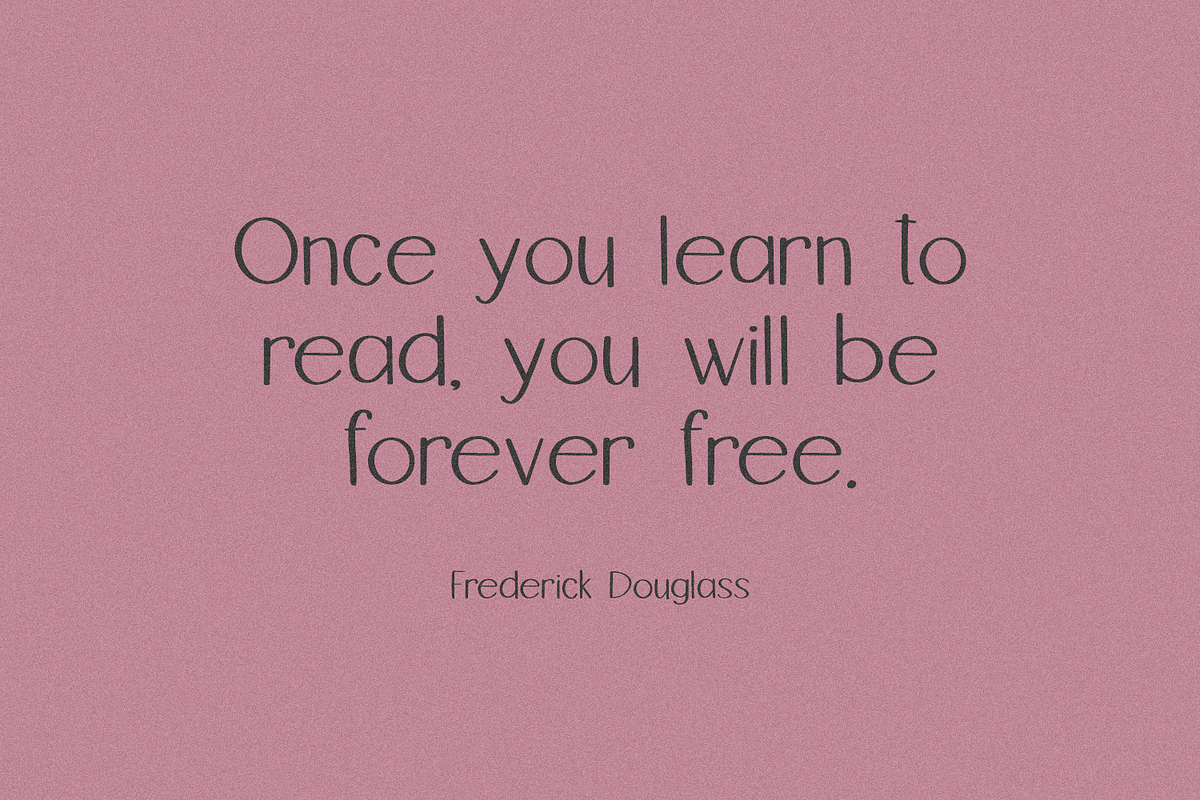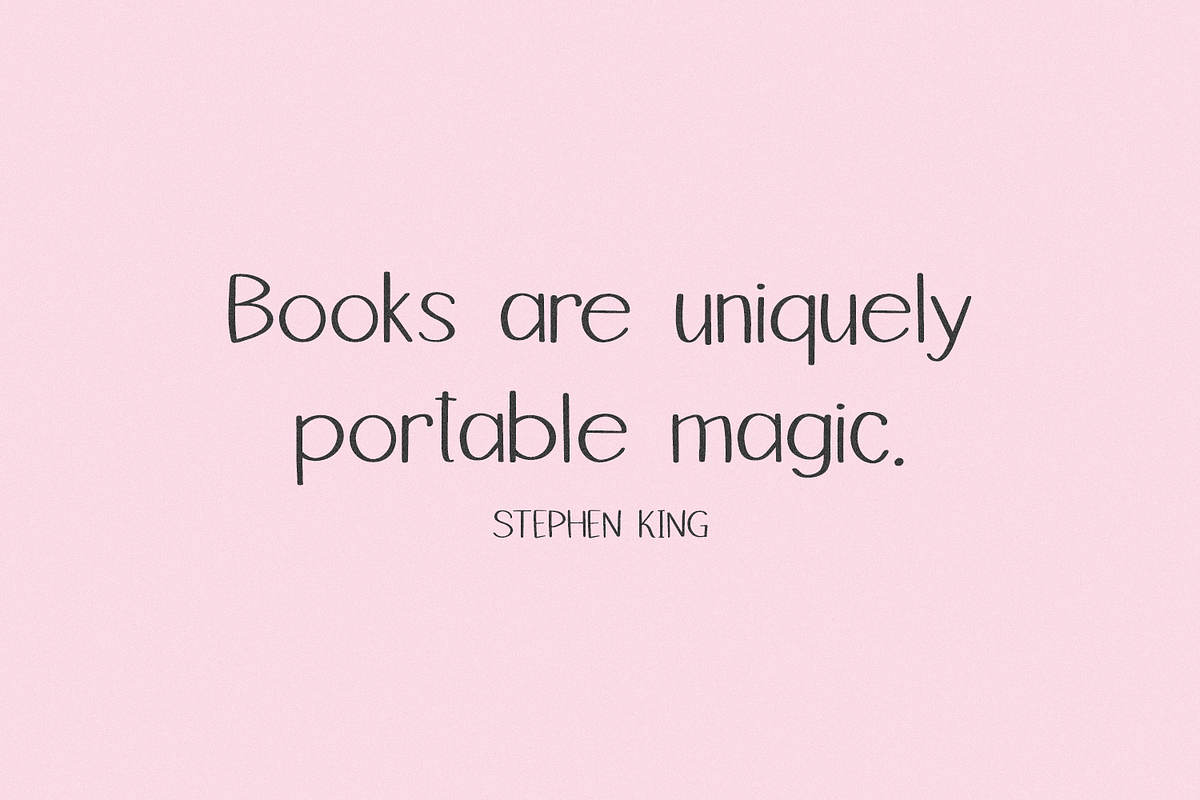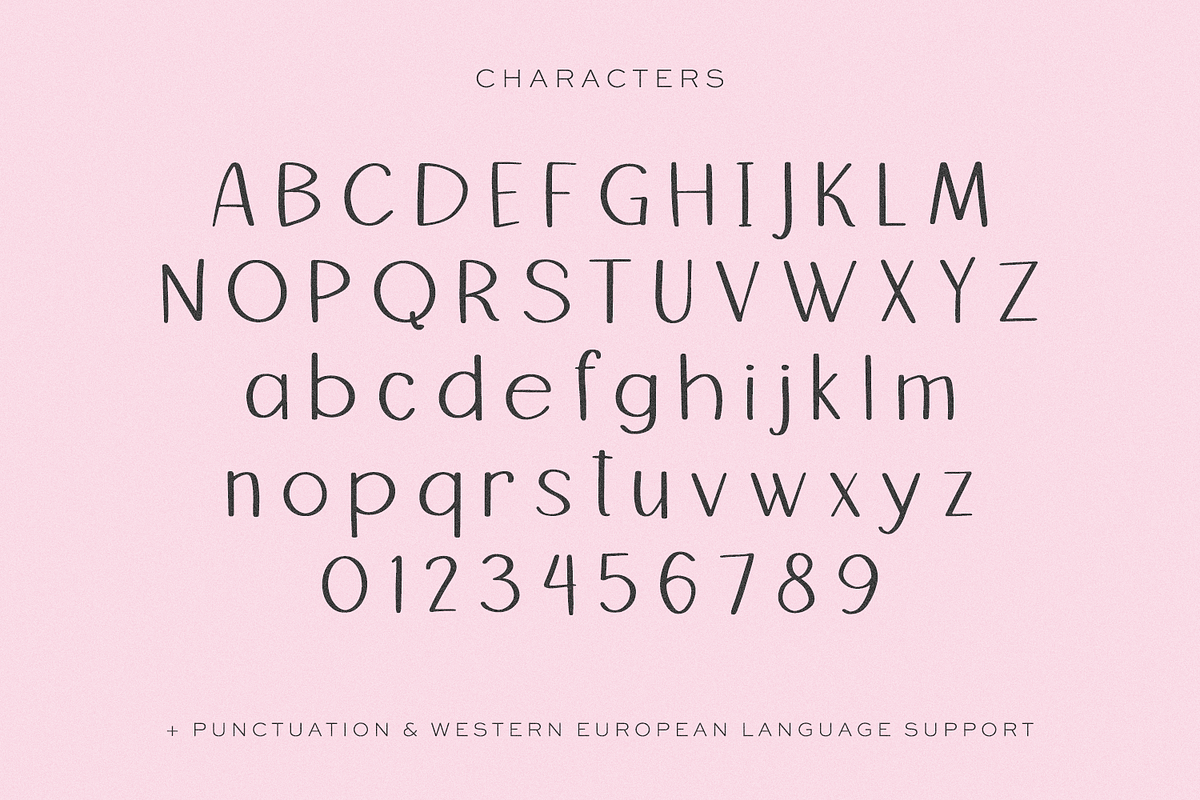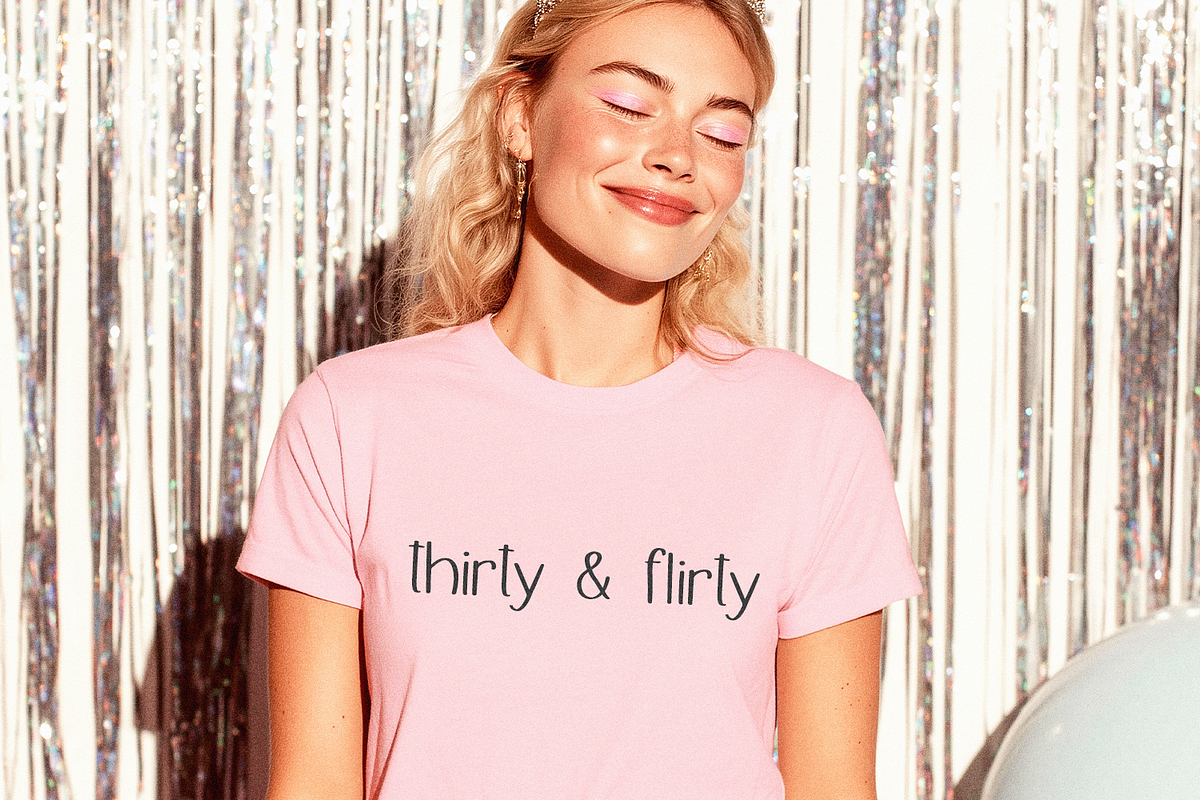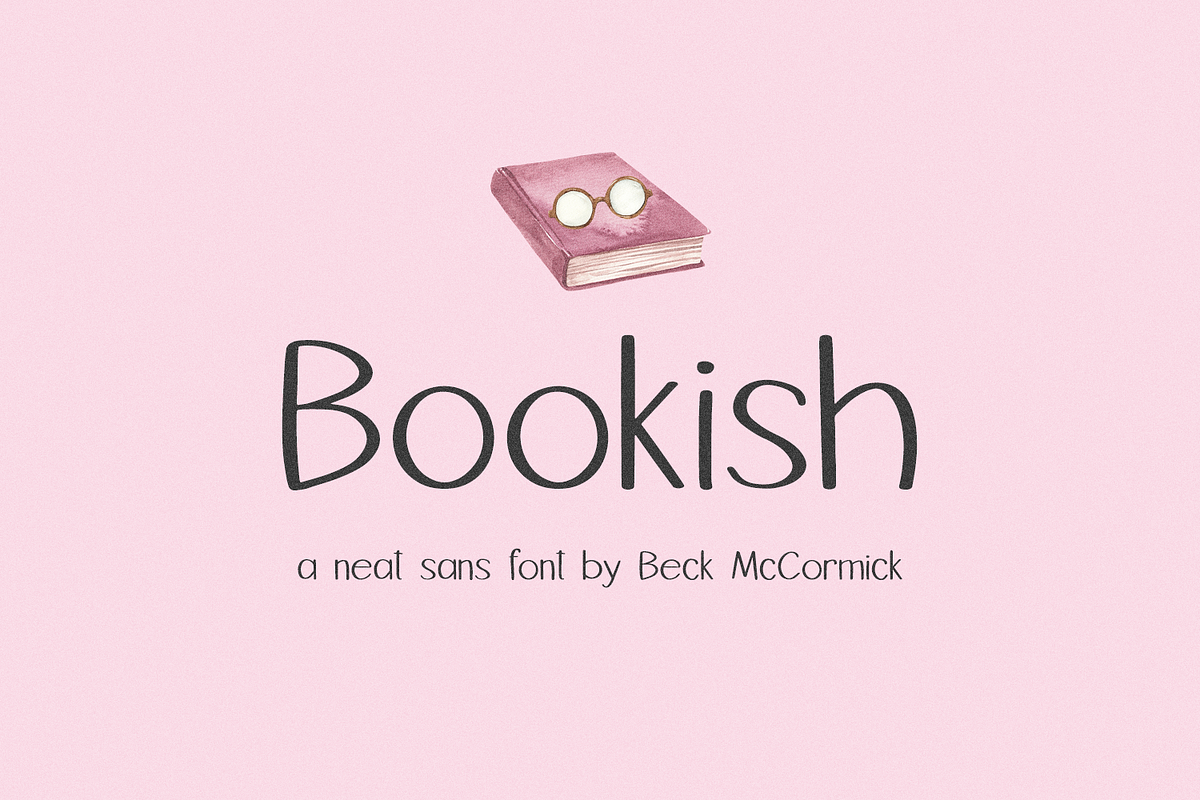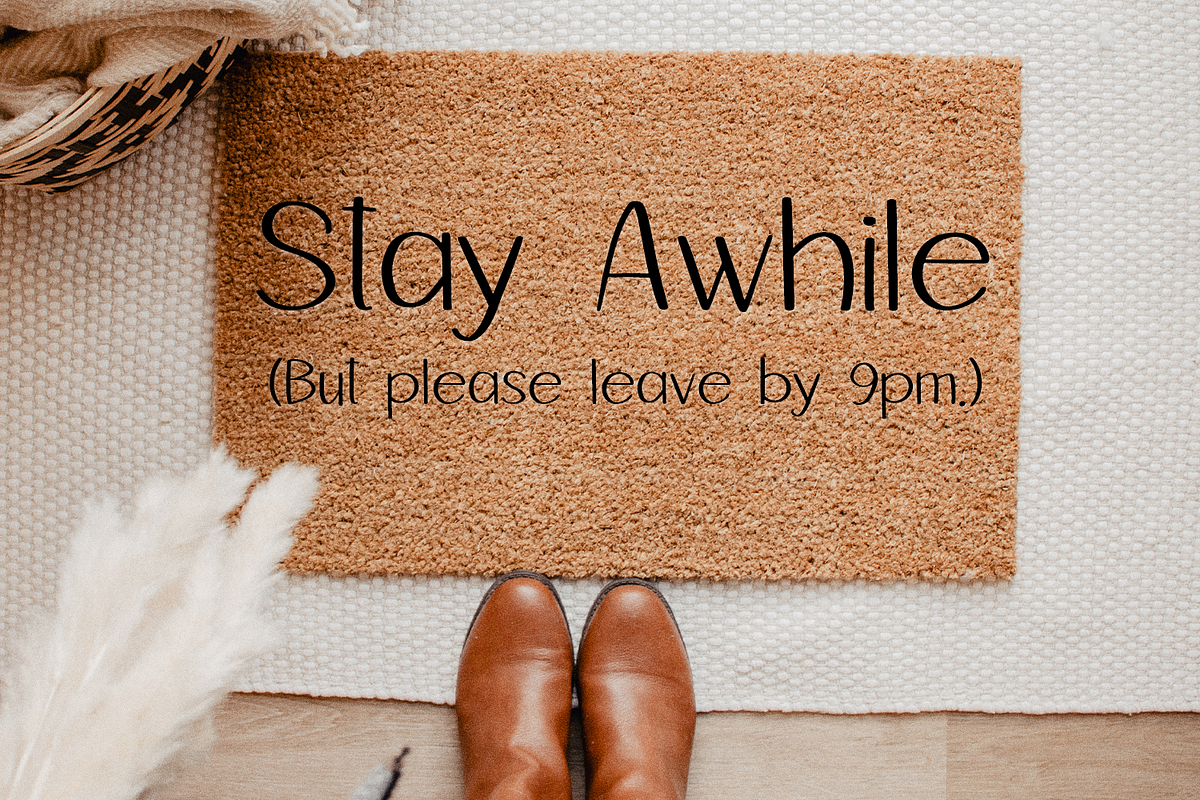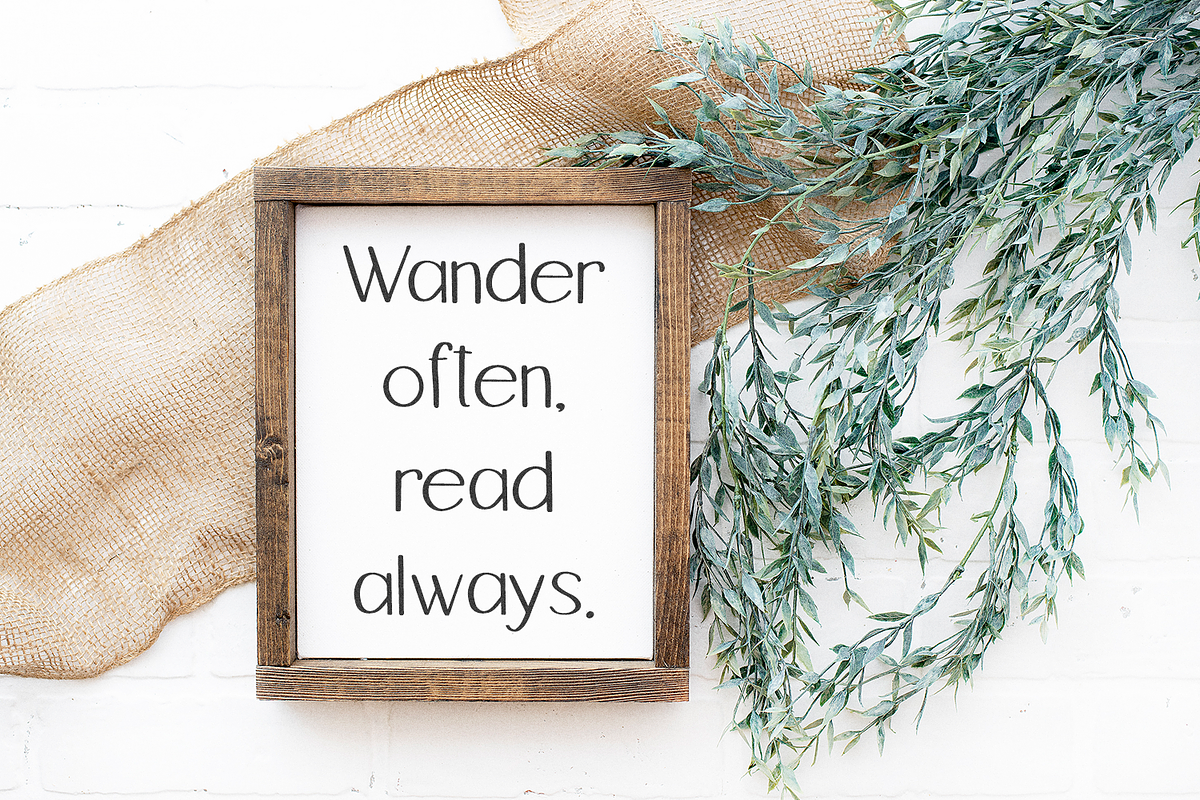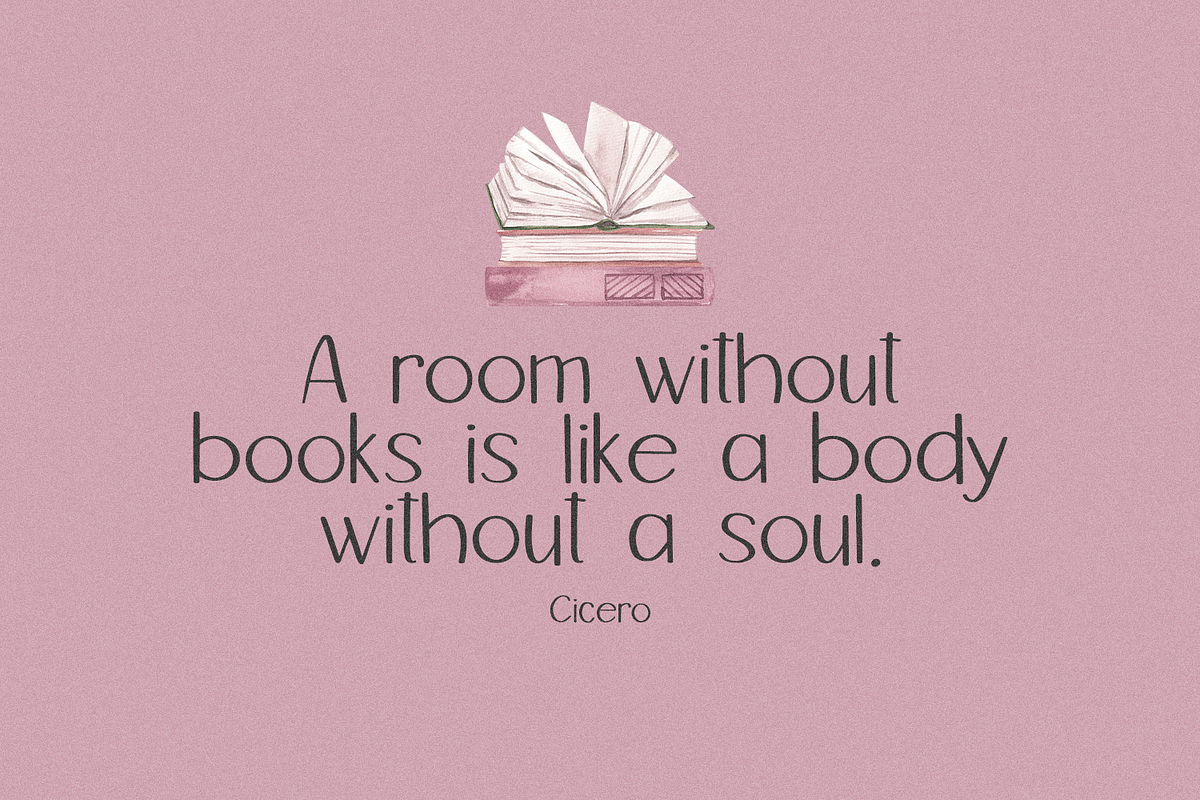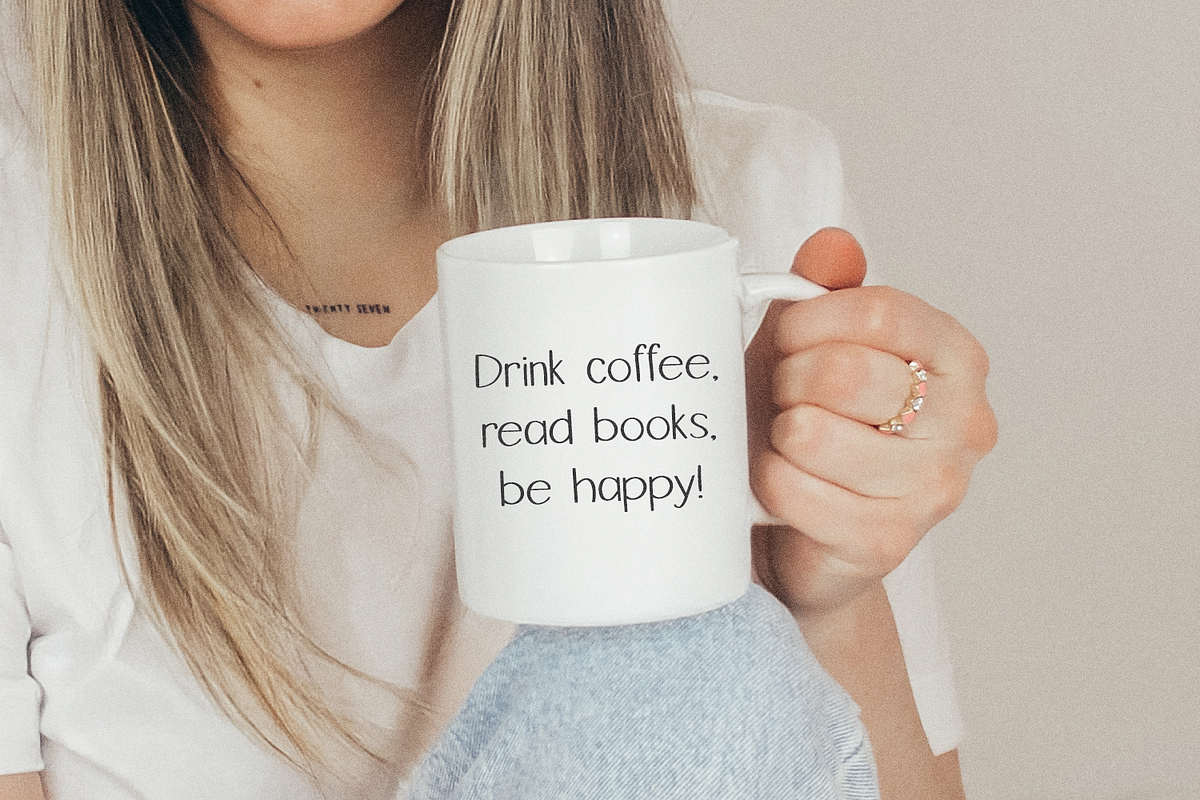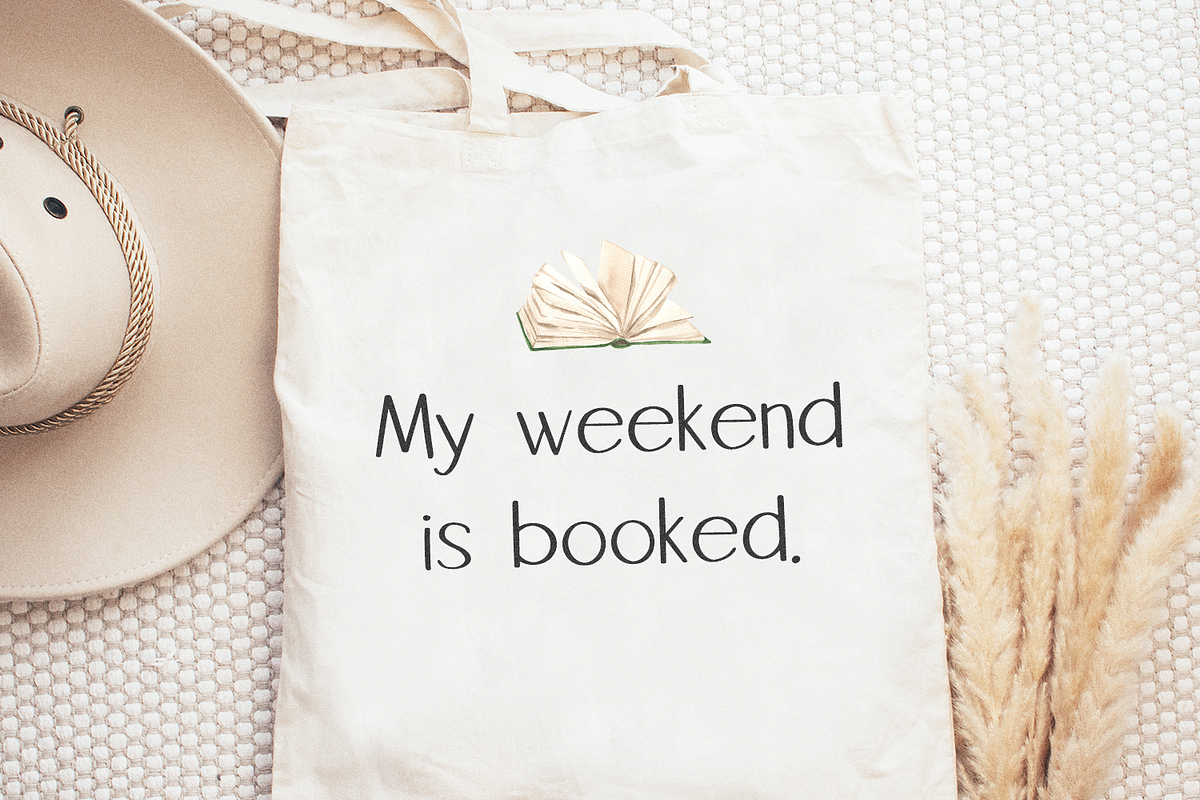
Bookish Sans
Bookish Sans is a neat & tidy hand lettered font. It’s the perfect fit for your digital planner or note-taking app, and is super legible. Bookish Sans would also be fantastic as a Kindle font! Bookish will be a great fit for your cute home decor projects, your Cricut or Silhouette machine, or logo & branding projects, as well as social media or marketing graphics.
Bookish includes:
- full upper + lowercase characters
- numbers + punctuation
- Western European language support - English, French, Spanish, Portuguese (Brazil), Portuguese (Portugal), Italian, German (Germany), German (Austria), Dutch, Danish, Swedish, Norwegian (Bokmål and Nynorsk), Finnish, Icelandic, Irish, Welsh